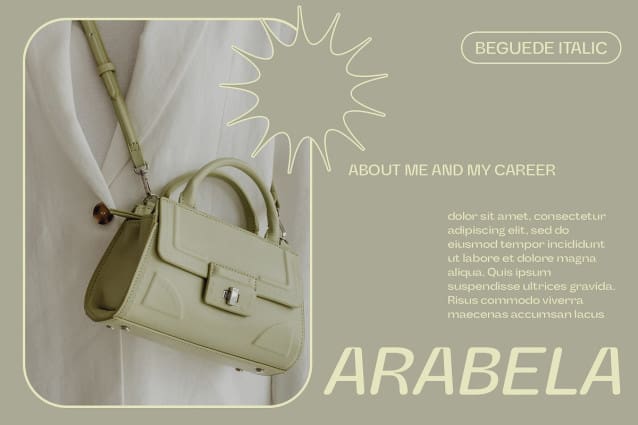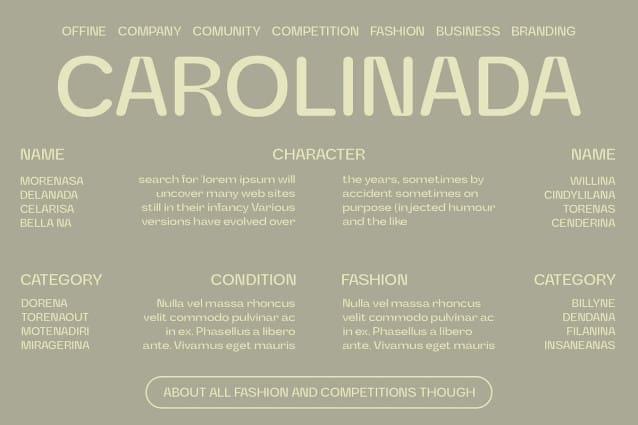
Baguede Rounded Font
Baguede Rounded Font: Embracing Modern Simplicity.  A Contemporary Sans Serif Baguede Rounded presents a sleek and contemporary sans serif style, embodying simplicity and elegance in its design.
Low Contrast, High Impact With its low-contrast strokes, This font delivers a subtle yet impactful visual presence, making it suitable for a wide range of design applications.
Softened Stem Endings The rounded stem endings of This font add a touch of warmth and friendliness to its overall appearance, enhancing readability and approachability.
Versatile and Accessible Designed for versatility, This font is suitable for various design contexts, from digital interfaces to print materials. Its modern simplicity ensures accessibility across diverse audiences.
Modernity Meets Simplicity This font stands as a testament to the marriage of modern design principles and minimalist aesthetics. With its low-contrast, rounded features, this sans serif font offers both versatility and accessibility, making it a valuable addition to any designer’s toolkit.